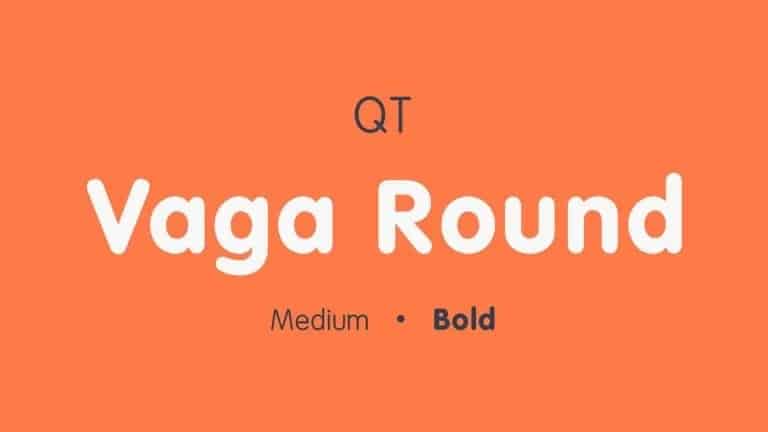
Vaga Round Sans Serif Font
Vaga Round Font is a new super-clean bold sans font. It has an ultra-modern and noble-tech look, inspired by the appearance of top-notch IT brands.
The refined design, which celebrates maximum legibility, represents the philosophy of minimalism and functionality sublimed in the credo “Less is more”. Like any other high quality professional font.